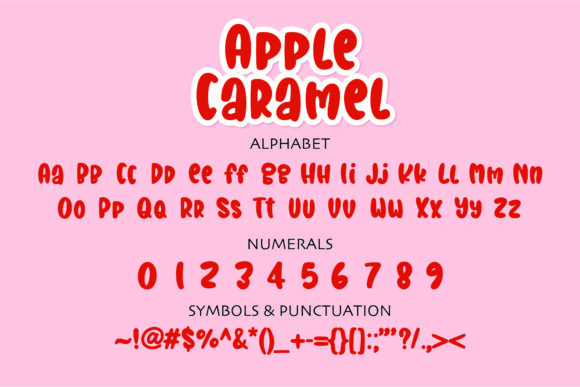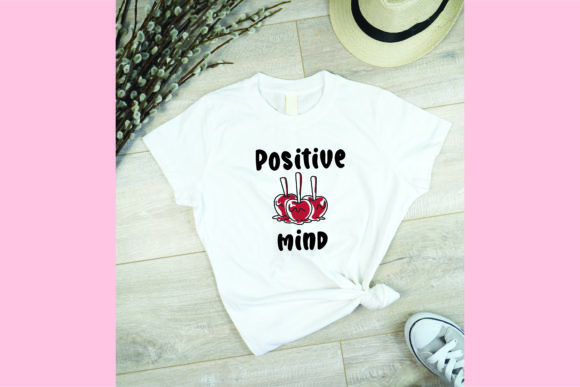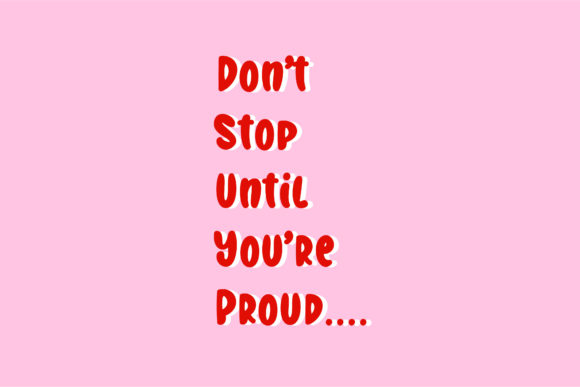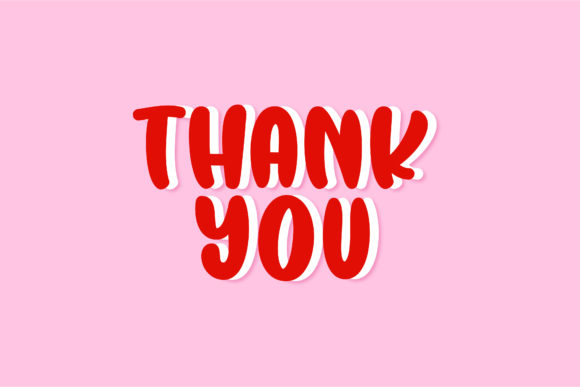
The Apple Caramel Font: A Sweet Addition to Your Design Toolbox
Apple Caramel is a cool and trendy looking handwritten font that has become a staple in my design toolbox. Its unique blend of playfulness and sophistication makes it perfect for a wide range of design projects. In this article, I’ll share my honest review of the font, provide a practical guide on how to use it, and explore its endless possibilities.
- ✅ Unique and trendy design that stands out from the crowd
- ✅ Works well for both digital and print projects
- ✅ Supports multiple languages and has a wide range of glyphs
- ⚠️ Some characters may not work well in all contexts, so be sure to test the font thoroughly
- ⚠️ Limited availability of stylistic alternates, but still offers a range of OpenType features
One of the best things about Apple Caramel is its range of OpenType features and glyphs. These allow you to customize the font to suit your design needs. Some of the features you can explore include:
- Ligatures: These are special character combinations that can add a touch of elegance to your text
- Stylistic alternates: These allow you to switch between different font styles, such as italic or bold
- Glyphs: These are special characters that can add visual interest to your text, such as ornaments or swashes
The Story Behind Apple Caramel
The Apple Caramel font was designed with the goal of creating a unique and trendy handwritten font that would stand out from the crowd. The designer wanted to create a font that would be perfect for a wide range of design projects, from menus and posters to flyers and more. With its elegant and sophisticated feel, Apple Caramel is sure to become a favorite among designers and crafters alike.
| What is the Apple Caramel font best used for? | The Apple Caramel font is best used for design projects that require a trendy and elegant look, such as menus, posters, flyers, and more. |
| Does Apple Caramel support multiple languages? | Yes, Apple Caramel supports multiple languages and has a wide range of glyphs. |